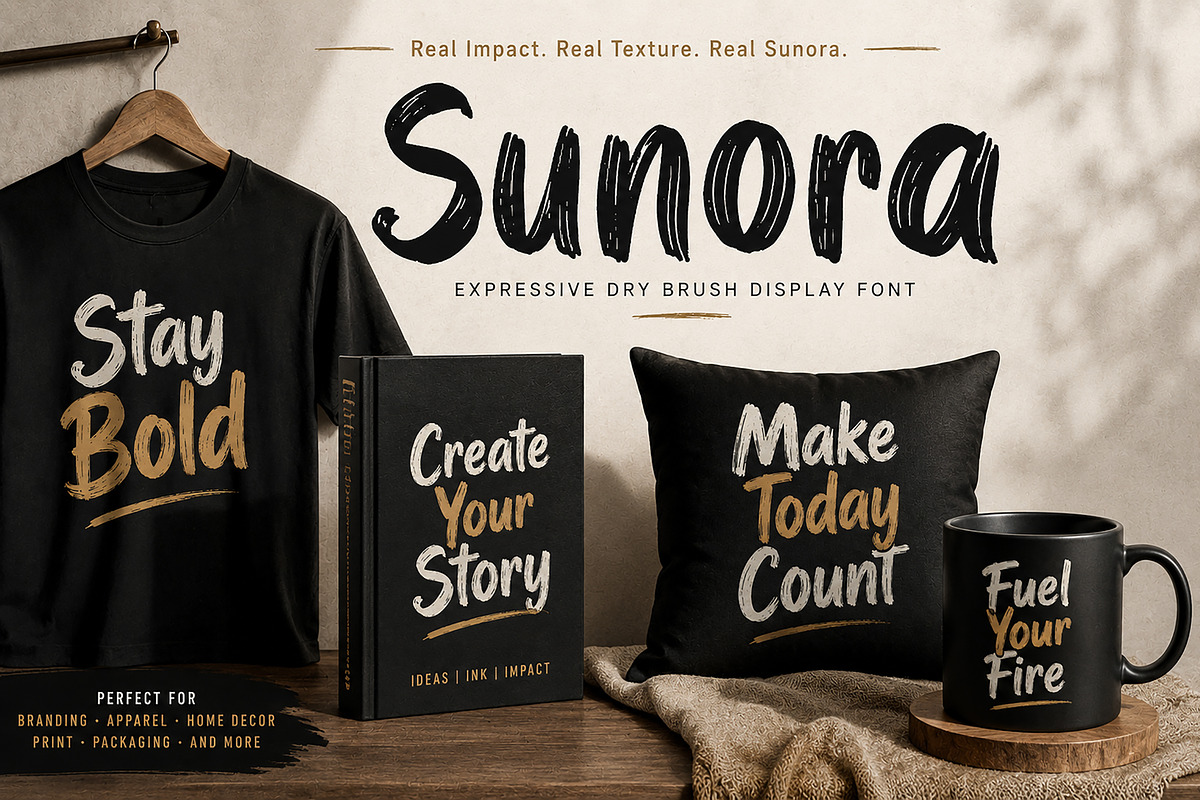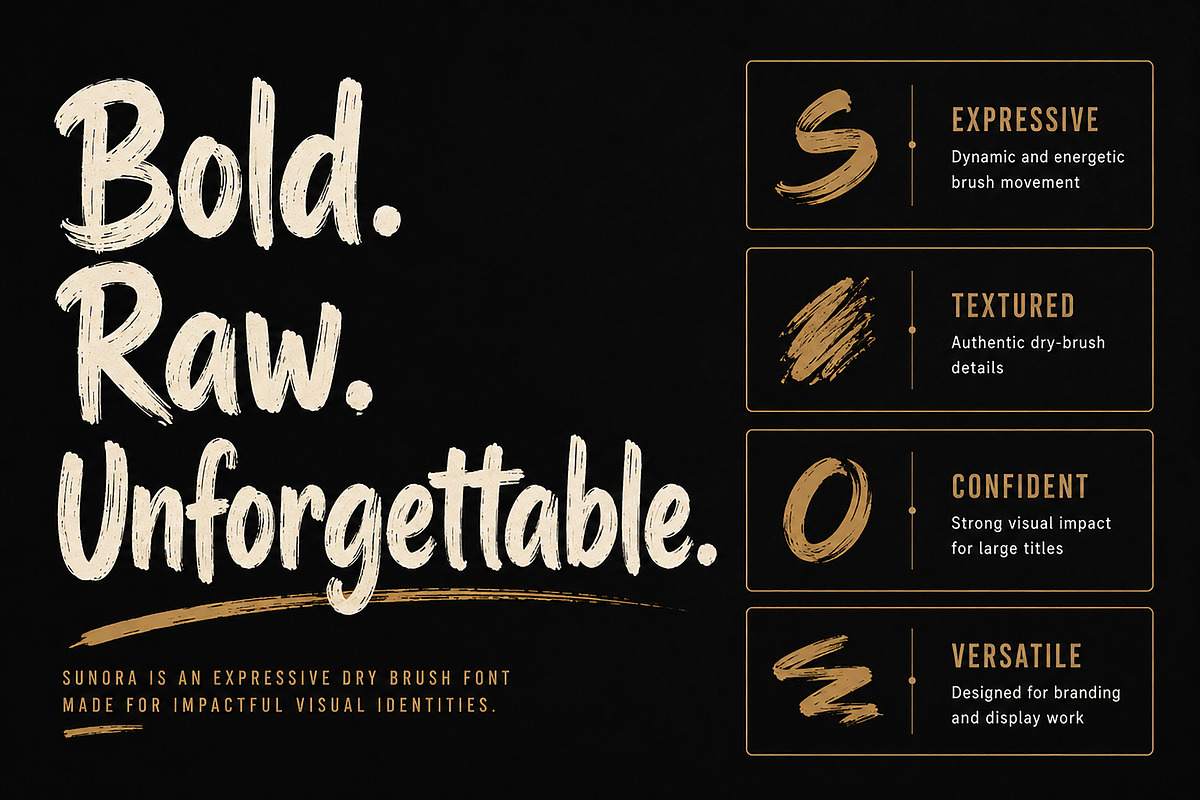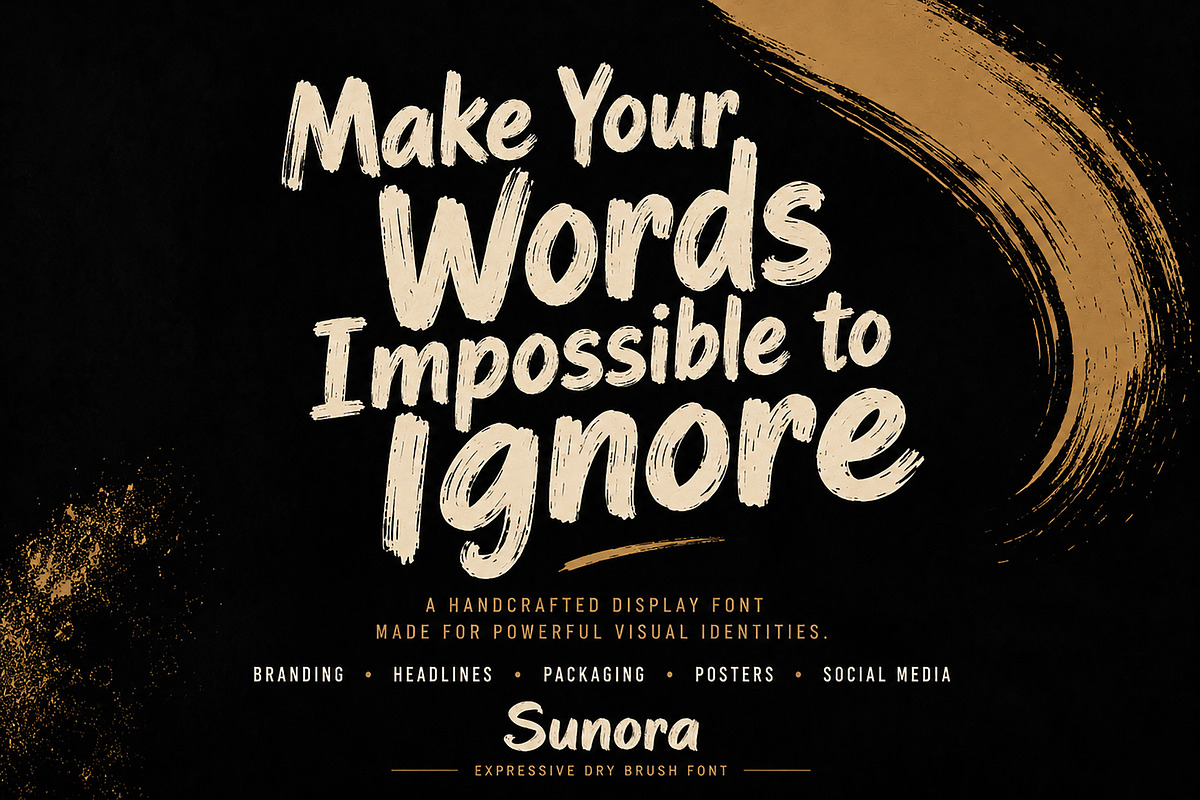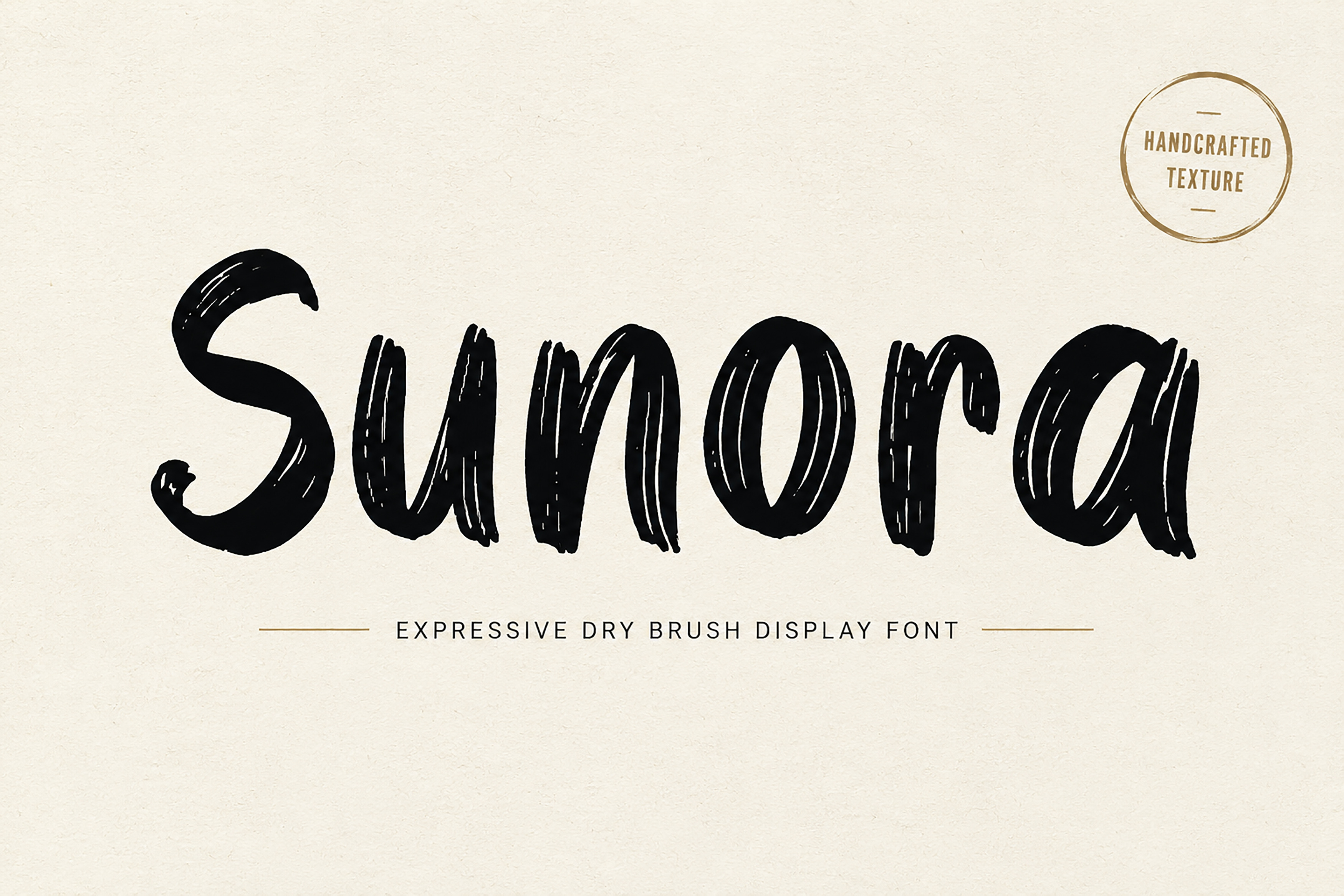
Sunora – Dry Brush Display Font
Sunora – Expressive Dry Brush Display Font
Description
Sunora is a handcrafted dry brush display font designed to make every word stand out. Featuring bold strokes, authentic brush texture, and natural ink imperfections, it delivers a raw, expressive look that instantly captures attention.
Each letter has been carefully crafted to preserve the feel of real brush movement, making Sunora perfect for creative projects that demand personality, energy, and visual impact. Whether you're designing a striking logo, bold headline, poster, packaging, or social media graphic, Sunora adds a handcrafted touch that feels both modern and artistic.
Its organic texture and confident letterforms make it ideal for designers looking to create memorable branding and eye-catching typography with minimal effort.
Branding & Visual Identity
Posters
Headlines
Apparel Design
Quote Designs
YouTube Thumbnails
Advertising
Creative Projects
Print Design
Handcrafted Dry Brush Style
Authentic Brush Texture
Bold & Expressive Letterforms
High Visual Impact
Perfect for Display Use
Premium Quality Design